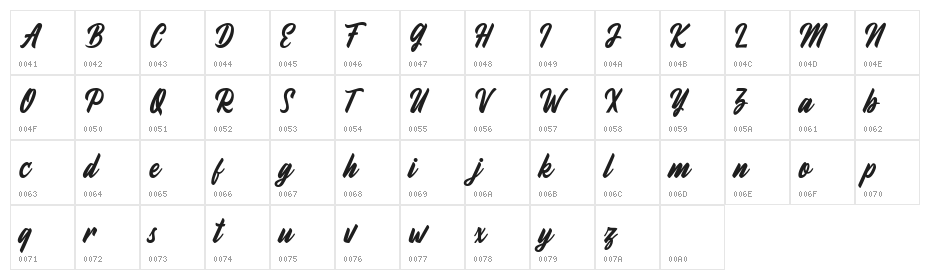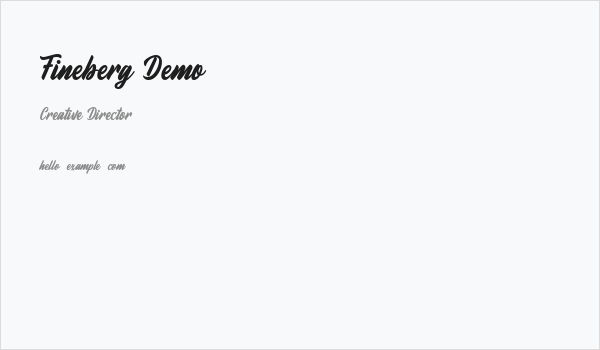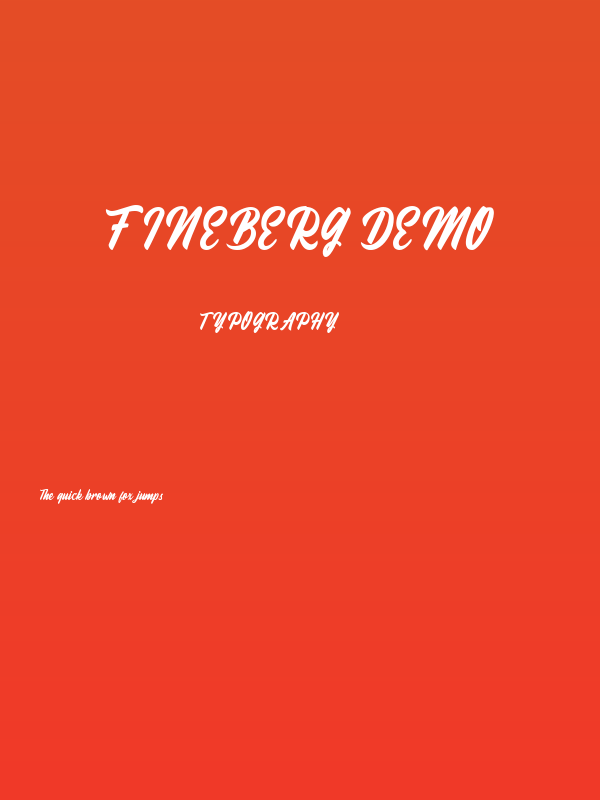
Fineberg Demo Font
Fineberg Demo Description
This font features a bold, cursive style with smooth, flowing lines that give it an elegant and dynamic appearance. The characters are connected, creating a sense of continuity and movement. The uppercase letters are slightly more elaborate, with flourishes that add a touch of sophistication. The lowercase letters maintain a consistent flow, enhancing readability while preserving the decorative nature of the font. The overall design is balanced, with a medium contrast in stroke thickness that adds to its legibility. This font is ideal for projects that require a personal or artistic touch, such as invitations, branding, or creative headlines.
Use CaseHeadlines, Logos, Invitations
Proposed ProjectsIdeal for wedding invitations, branding, creative headlines, and artistic projects.